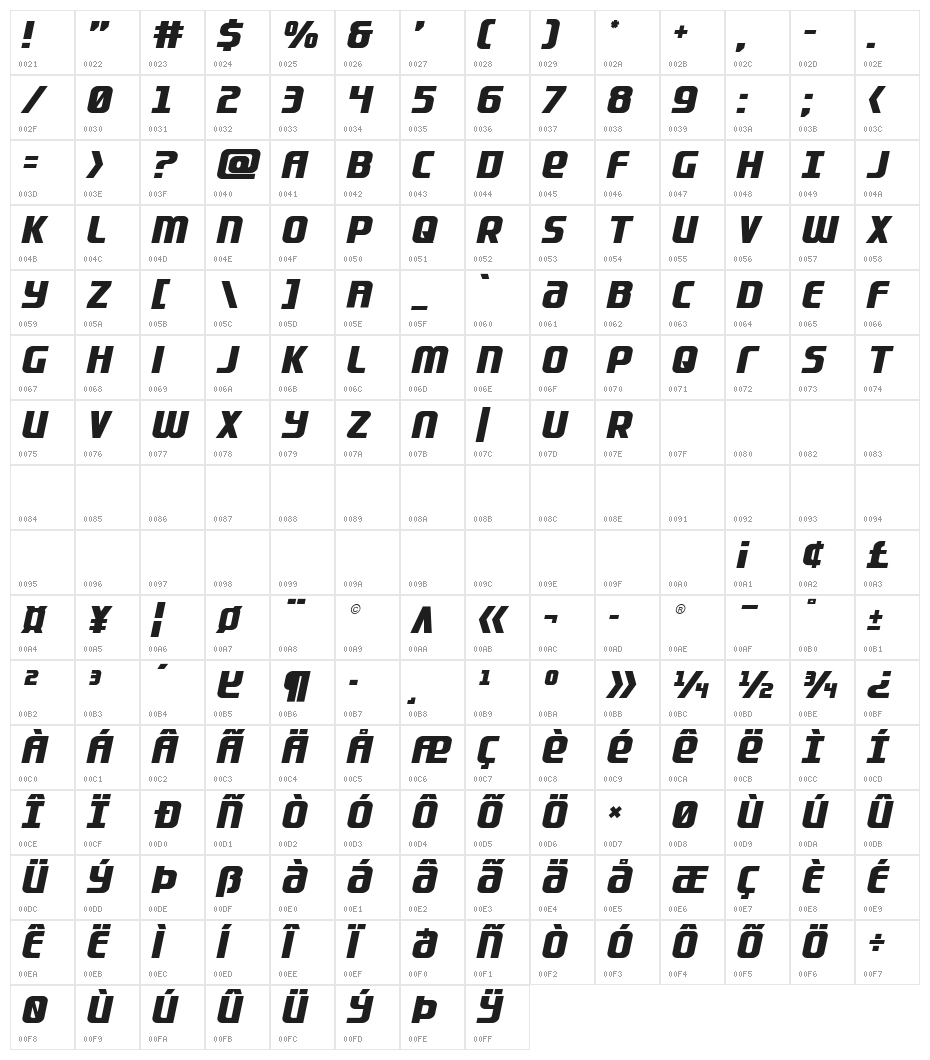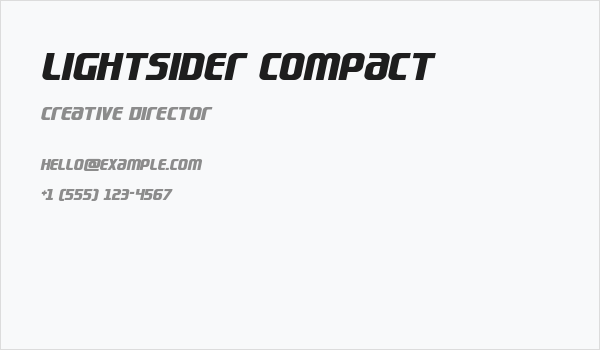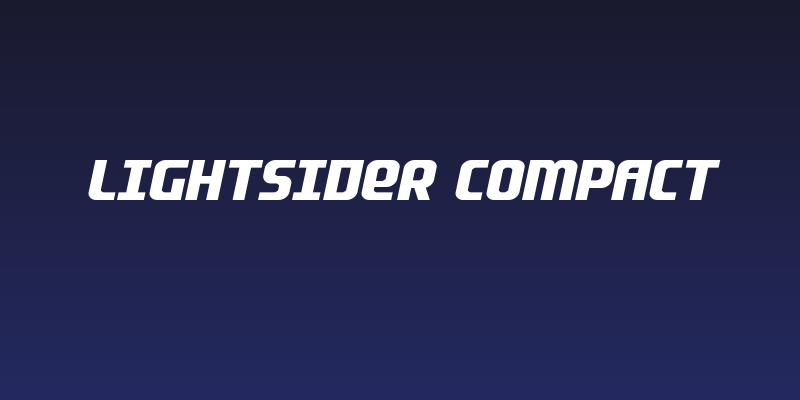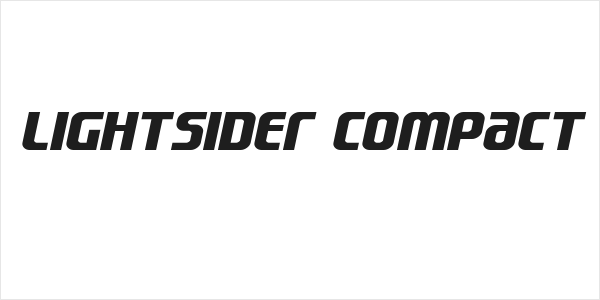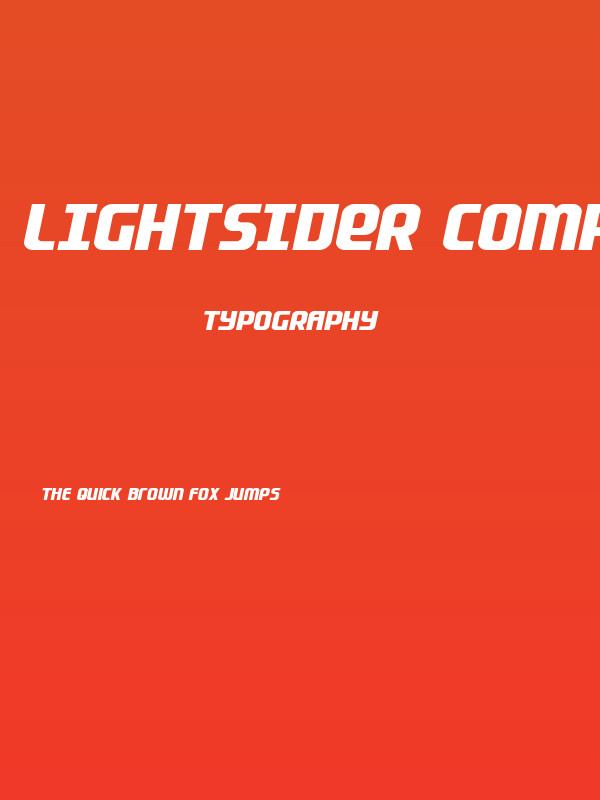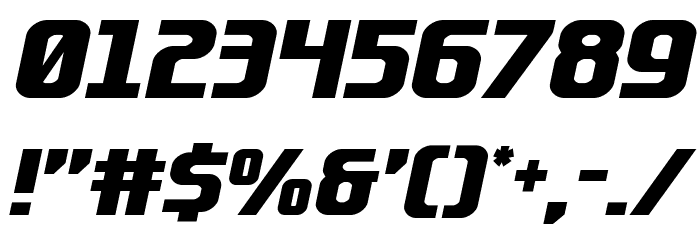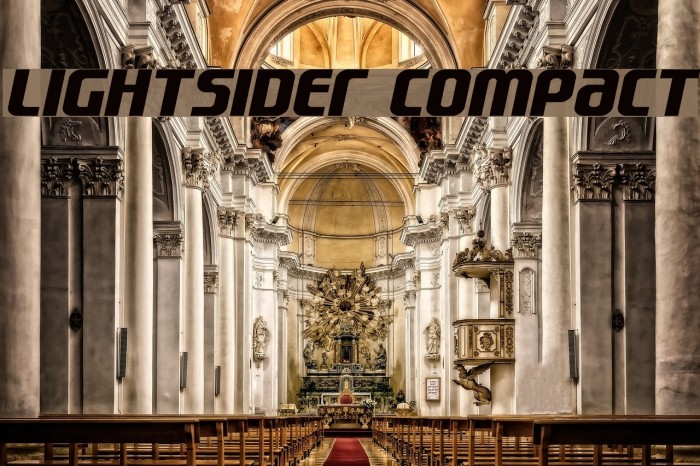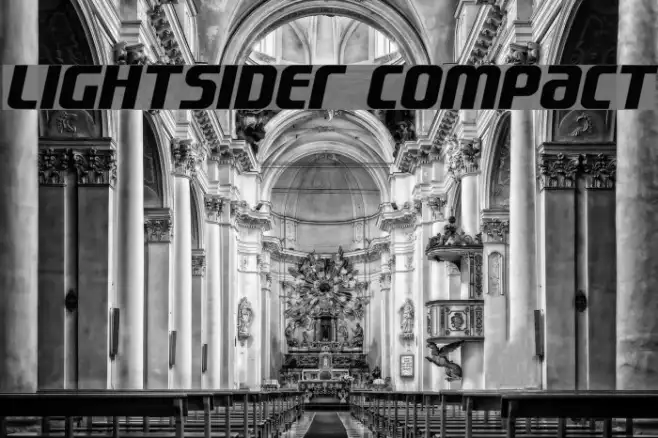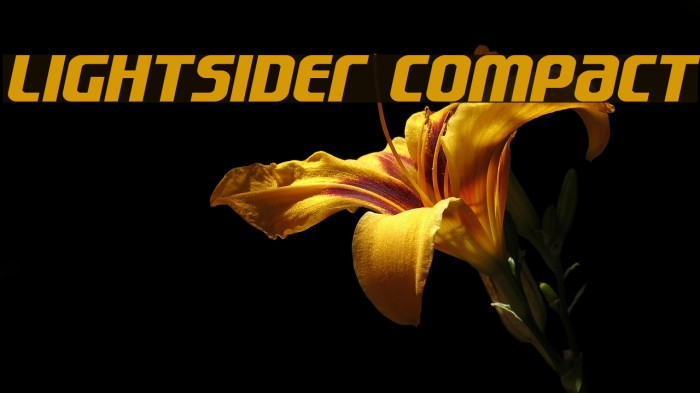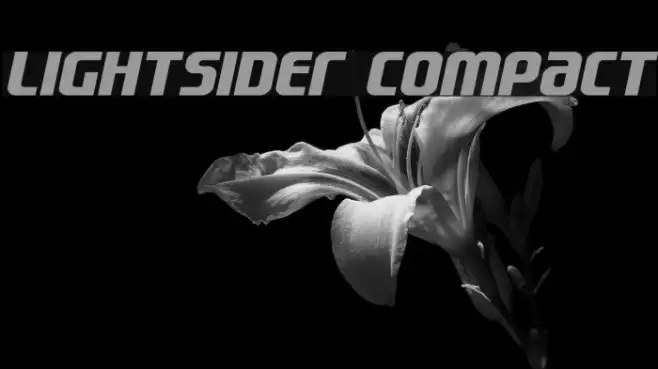
Lightsider Compact Font
Lightsider Compact Description
This font features a bold and dynamic design with a modern, futuristic appeal. The characters are slightly slanted, giving a sense of movement and speed. The strokes are thick and consistent, providing a strong visual impact. The overall design is compact, with tight character spacing that enhances its boldness. The font includes a full set of uppercase and lowercase letters, numbers, and a variety of special characters, making it versatile for various uses. Its geometric shapes and clean lines make it suitable for contemporary designs.